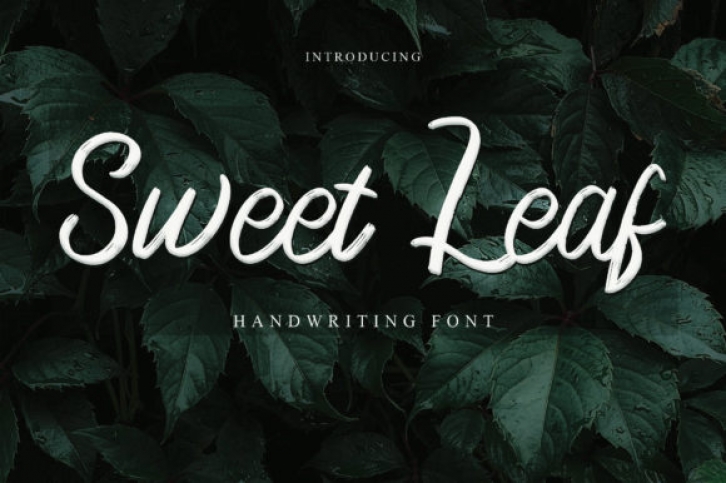
Sweet Leaf is a chic, refined script font that emanates sophistication and elegance. Its stylish alternates and ligatures make this font the perfect match for any project.